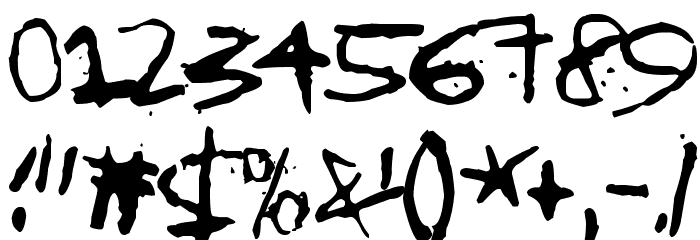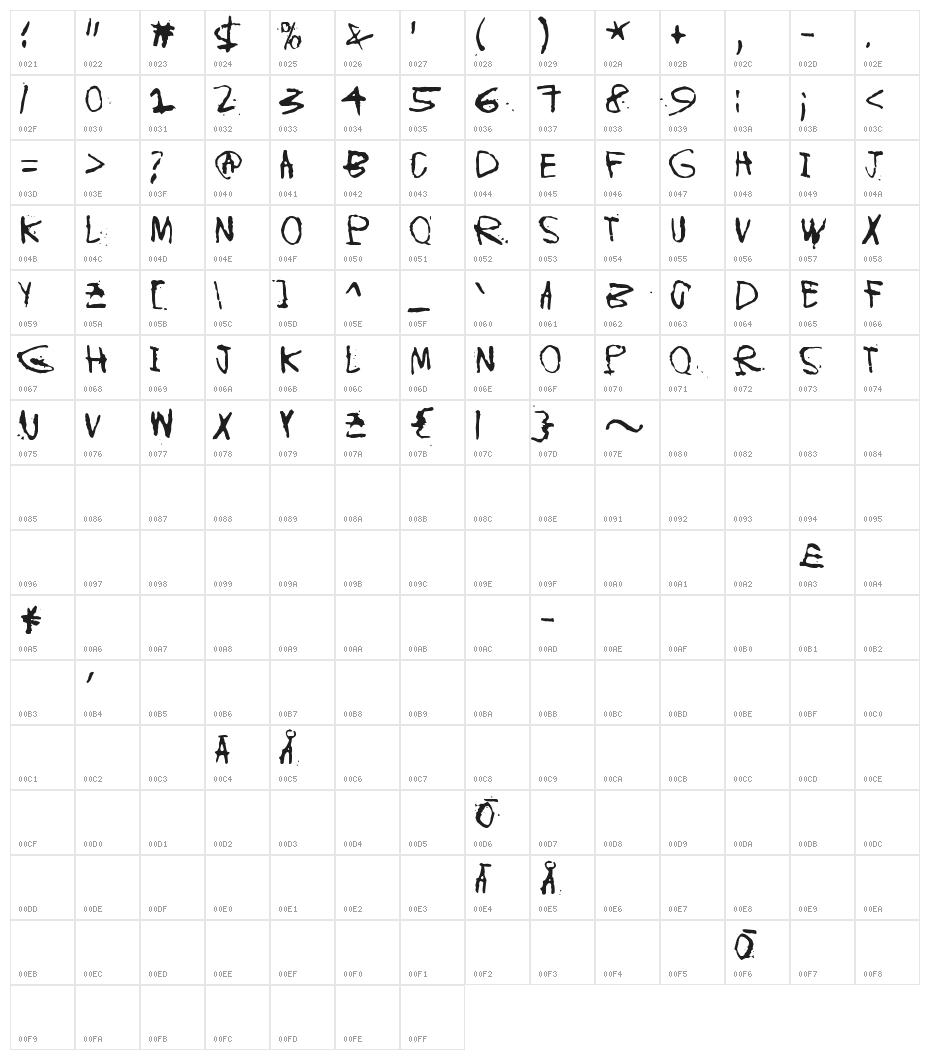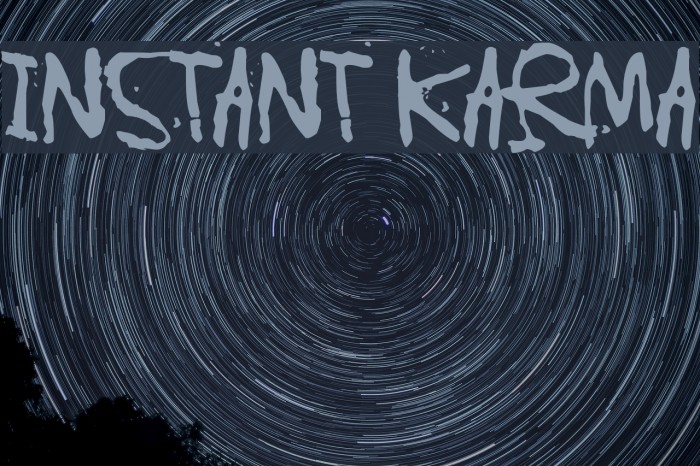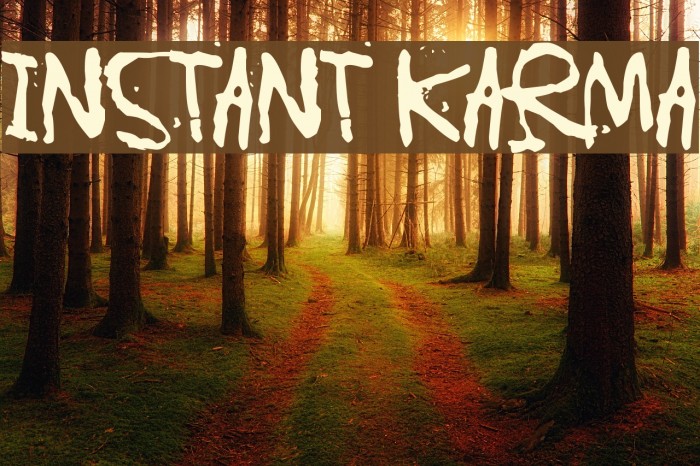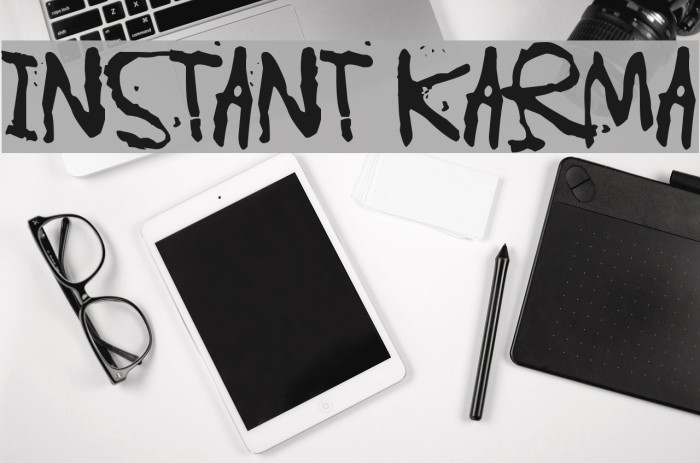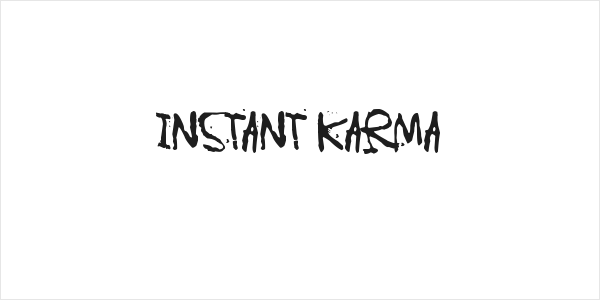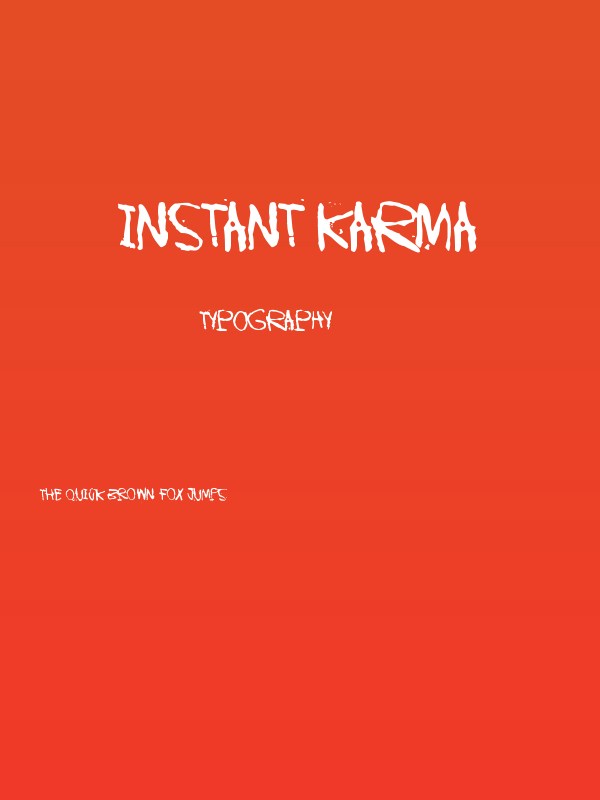
Instant Karma Font
Instant Karma Description
This font exhibits a raw, expressive style reminiscent of graffiti or hand-painted lettering. The characters are bold and irregular, with uneven strokes and splatters that give it a dynamic, energetic feel. The uppercase and lowercase letters share a consistent, rugged aesthetic, while the numbers and special characters maintain this theme with their own unique flair. The overall appearance is chaotic yet artistic, making it ideal for projects that require a bold statement or an edgy, urban vibe.
| Overall Style | Urban, Edgy, Artistic |
| Proposed Projects | Ideal for street art designs, music album covers, edgy posters, and urban-themed branding. |